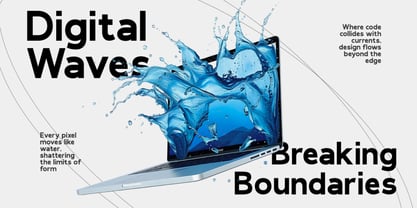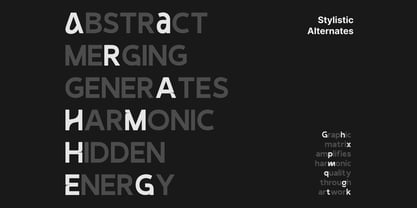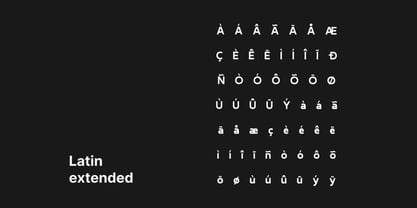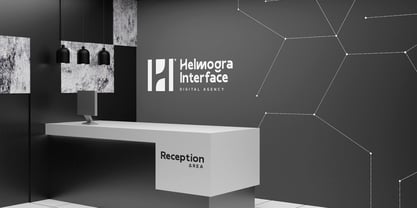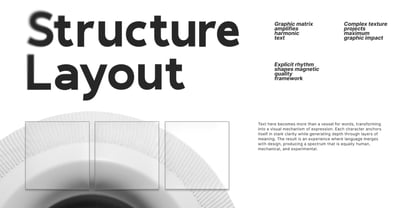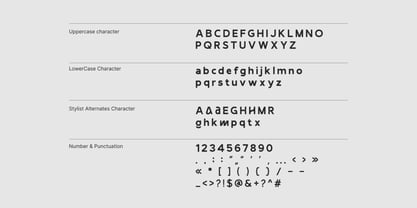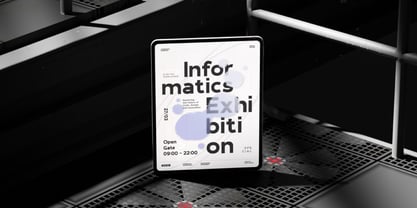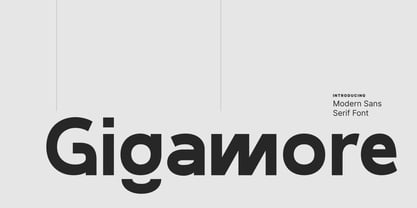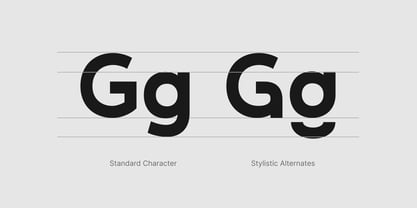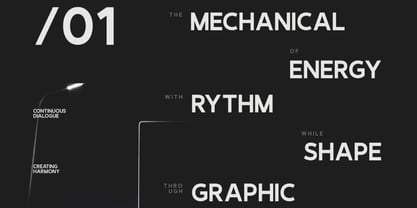
Gigamore
by Rasio Studio
The Gigamore Font Family was designed by Fajar Indra and published by Rasio Studio. Gigamore contains 1 styles. More about this family
Gigamore Geometric Sans Serif Font is a modern typeface built on clean geometric shapes and balanced proportions. It features bold precision, smooth curves, and minimalist structure that convey professionalism and forward-thinking design. Equipped with uppercase, lowercase, numerals, punctuation, stylistic alternates, and multilingual support, Gigamore delivers both versatility and aesthetic impact. Relevance and Use Cases is perfect for branding, digital design, modern advertising, tech company logos, editorial headlines, professional presentations, posters, packaging, startup identity systems, minimalist web design, and futuristic creative projects that require precision and clarity in typography.